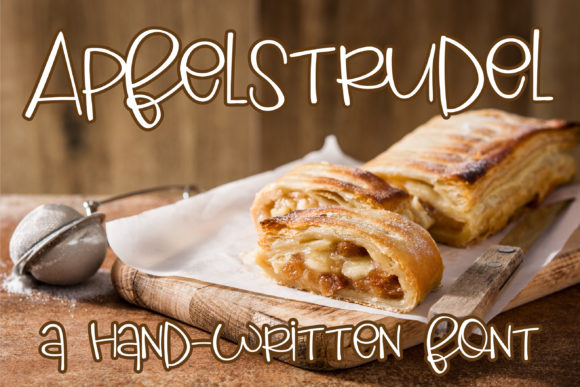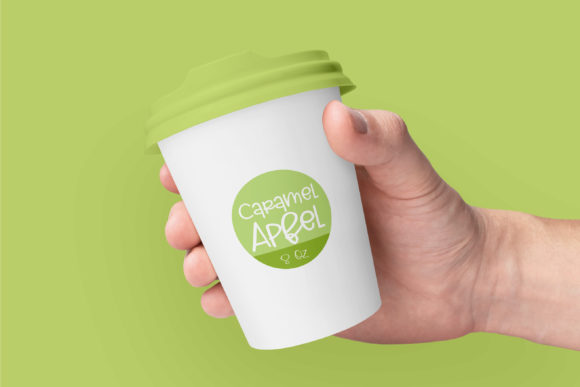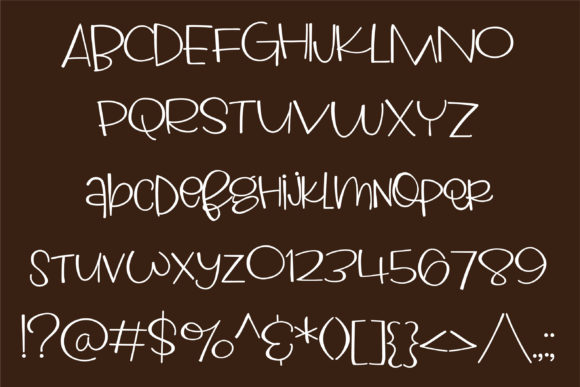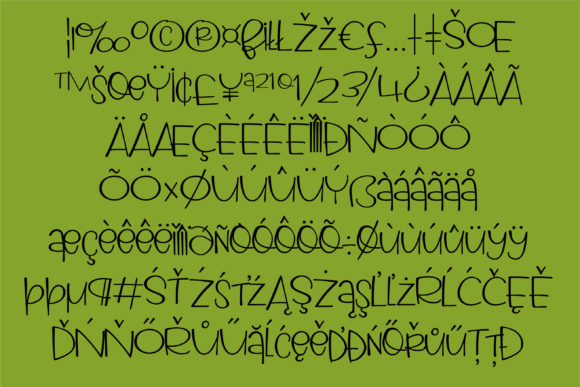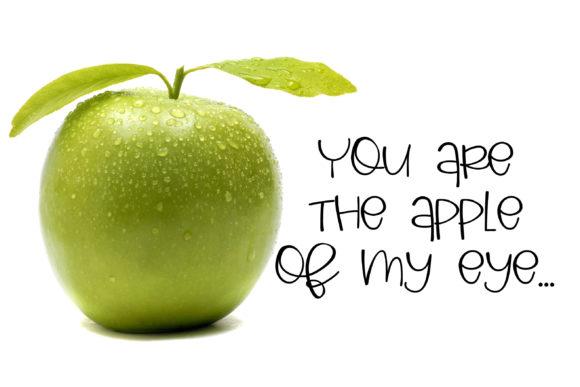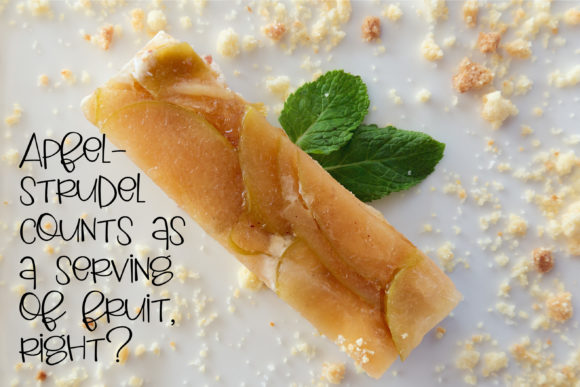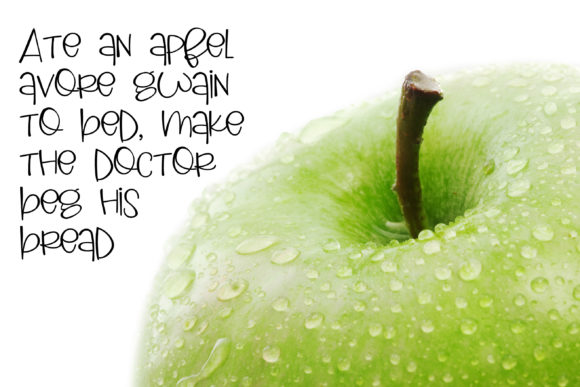
ZP Apfelstrudel Font
About ZP Apfelstrudel Font
Apfelstrudel is a casual and fun handwritten font. Clean and a little bit quirky, this font is the perfect fit for all of your logos, branding, social media, and crafty DIY projects.